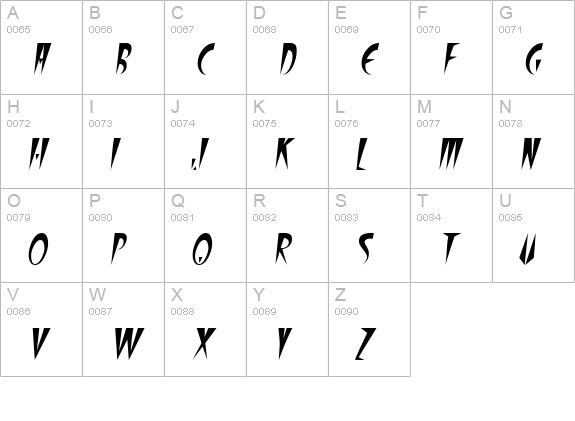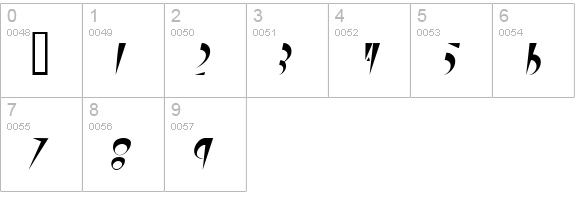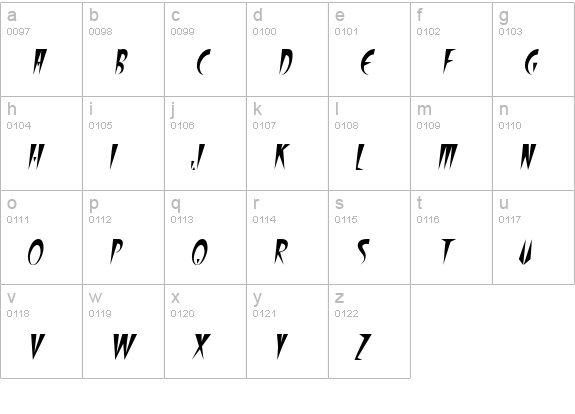
FangsSCapsSSK Italic Font Details
FangsSCapsSSK Italic is a distinctive, italic variant in the FangsSCapsSSK typeface family \xE2\x80\x94 well suited to design and typography projects.
FangsSCapsSSK Italic font is a bold and dynamic typeface that exudes a sense of strength and sophistication. With its sharp angles and distinctive slanted design, this font is perfect for making a bold statement in your designs. The italic style adds a touch of elegance and flair, making it ideal for projects that require a touch of drama. What makes FangsSCapsSSK Italic font even more appealing is that it is available for free download at FontsMarket.com. This means you can easily access this striking font and use it in your projects without any cost. Whether you are working on branding, advertising, or creative projects, FangsSCapsSSK Italic font is sure to make a lasting impression. Don't miss out on this opportunity to elevate your designs with this unique and eye-catching font.